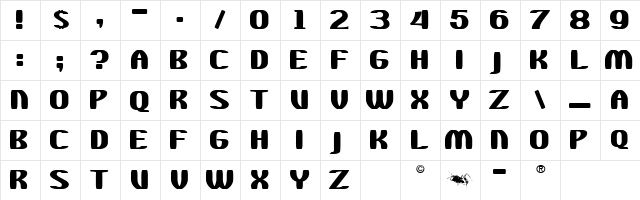
WaChaKa Regular
Design Context for WaChaKa Typeface
WaChaKa takes a measured approach to typography — its balanced proportions and neutral character make it a reliable workhorse for both digital and print work.